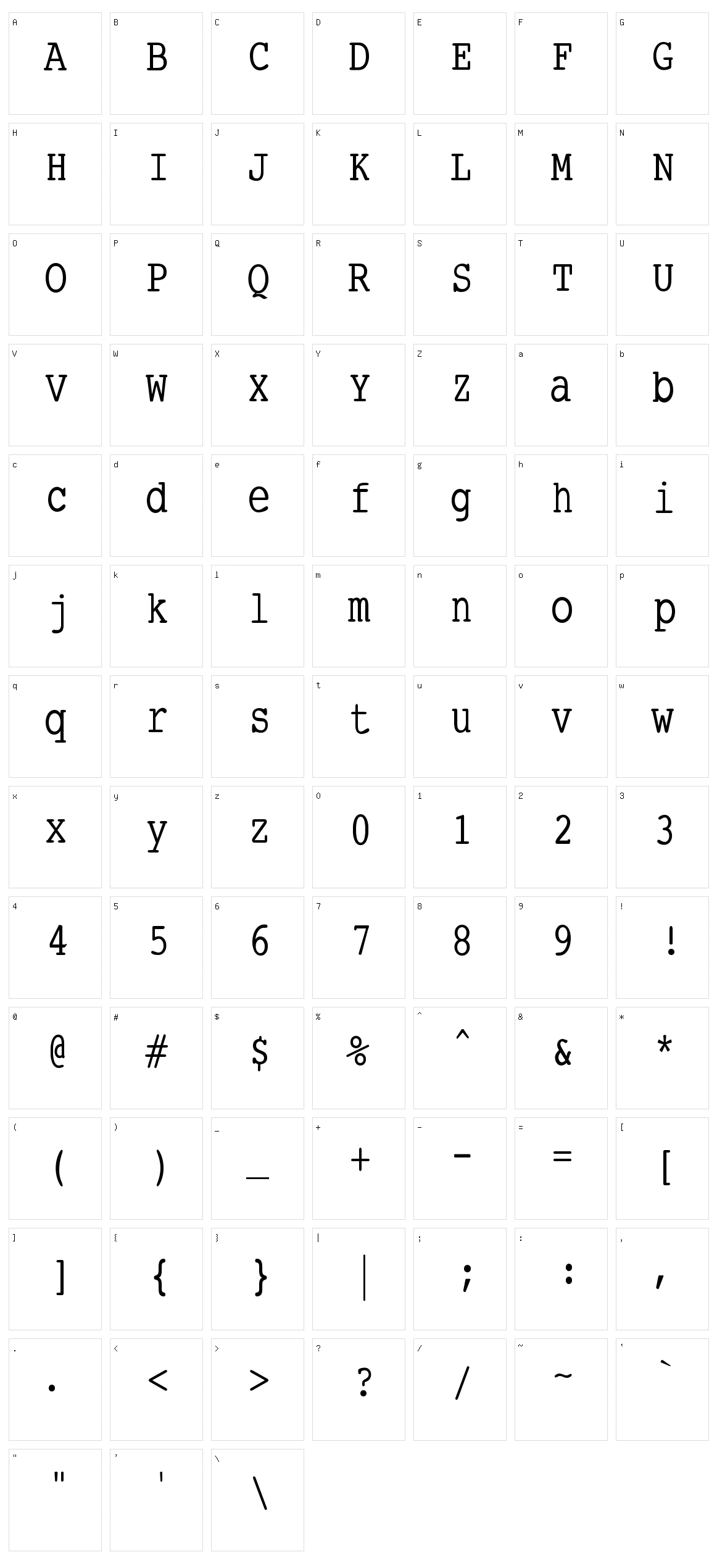
The free font SmallType Writing is carefully designed by Manfred Klein, showcasing a thoughtful balance of creativity and usability and falls under the Fixed width font style. When you download the ZIP file, it contains only 76.39 KB of font files, making it lightweight and quick to download. Please review the license details below to understand permitted usage and distribution rights. If license information is not available, we recommend using this font for personal projects only or contacting the author directly for commercial usage permissions.